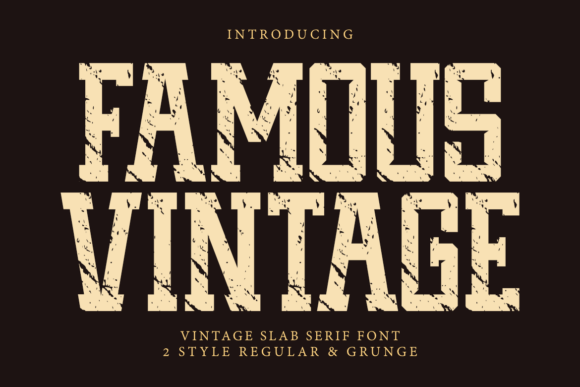
Famous Vintage Font: Adding a Touch of Timeless Charm to Your Designs
As designers, we’ve all been there – staring at a blank canvas, trying to bring a project to life. It’s those moments when the perfect font can be the game-changer. Imagine adding a dash of rugged charm to your poster or packaging design, giving it an authentic and adventurous feel that draws the viewer in.
Enter Famous Vintage Font, a vintage slab serif font that’s perfect for designers looking to add a touch of nostalgia to their work. With its bold geometric letterforms and rugged grunge textures, this font brings an authentic rustic look to your designs. Whether you’re working on logos, headline titles, or branding projects, Famous Vintage Font is a valuable addition to any designer’s toolkit.
- Unique Characteristics: The font features a distressed, worn look, with subtle texture and imperfections that evoke a sense of nostalgia and vintage charm.
Famous Vintage Font Review
I’ve had the chance to work with the Famous Vintage Font, and overall, it’s a lovely addition to any design project. ✨ The font’s distressed look gives it a unique charm that can add a touch of nostalgia and elegance to your work.
- ✨ Unique and distinctive look that can add character to your designs.
- ✨ Easy to read, even at smaller font sizes.
- ✨ Versatile, can be used for a variety of design projects, from logos to body text.
- ⚠️ May not be the best choice for projects that require a clean and modern look.
- ⚠️ Can be difficult to pair with certain font combinations, due to its bold and distressed look.
- ⚠️ Limited language support, which may be a concern for projects that require text in multiple languages.
Overall, I think the Famous Vintage Font is a great choice for designers who want to add a touch of vintage charm to their work. Just be aware of its limitations, and use it wisely.
To get the most out of the Famous Vintage Font, use it in combination with other design elements to create a cohesive look. Experiment with different font sizes, colors, and styles to find the perfect balance. You can also use the font to add a touch of nostalgia or whimsy to your design.
The Famous Vintage Font is perfect for a variety of design projects, including:
- Invitations and event materials
- Printed materials such as business cards and brochures
- Digital materials such as social media graphics and email headers